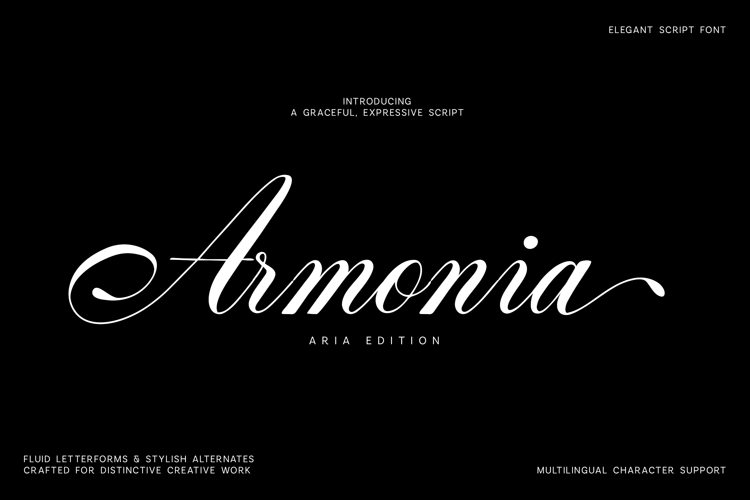
Armonia Aria Elegant Script Font
Armonia Aria is an elegant script font defined by graceful curves, dramatic contrast, and fluid handwritten movement. Its refined letterforms combine timeless calligraphic beauty with a polished contemporary character, making it ideal for sophisticated and expressive typography.
Designed for both striking headlines and delicate supporting text, Armonia Aria includes stylish alternate characters that help create more distinctive and naturally flowing compositions. Its extended multilingual support makes it a versatile choice for international creative projects.
Luxury branding and visual identities
Logotypes and signature-style designs
Wedding invitations and stationery
Editorial titles and magazine layouts
Beauty, fashion and cosmetic branding
Product packaging and labels
Social media graphics and advertising
Elegant quotes, posters and book covers
Font Features- Elegant high-contrast script style
- Uppercase and lowercase characters
- Stylish alternate letterforms
- Numbers, punctuation and symbols
- Extensive multilingual character support
- Smooth, expressive and carefully crafted shapes
Give your designs an unmistakably graceful voice with the refined movement and sophisticated personality of Armonia Aria.